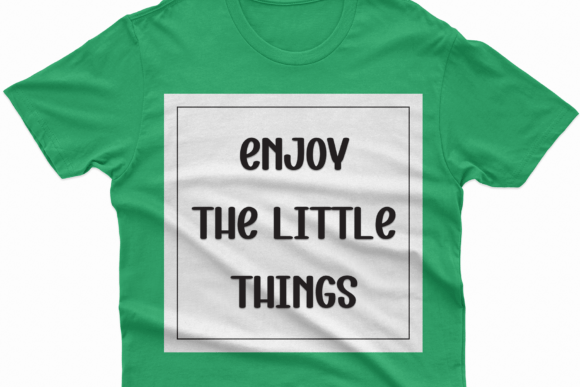
Introducing Shine Summer Font: The Perfect Blend of Casual and Neat Display
When it comes to creating visually appealing designs, the right font can make all the difference. If you’re looking for a font that exudes warmth, clarity, and approachability, look no further than Shine Summer Font. This casual and neat display font is designed to elevate your projects with its clean structure and charming style, making it perfect for branding, headlines, and everyday designs.
The Characteristics of Shine Summer Font
Shine Summer Font boasts a range of characteristics that set it apart from other display fonts. Its balanced letterforms offer exceptional readability, making it easy for your audience to quickly grasp your message. The font’s clean structure and approachable style give it a genuine and inviting feel, perfect for creating a connection with your target audience.
One of the standout features of Shine Summer Font is its ability to bring warmth and clarity to your projects. Whether you’re working on a branding campaign, creating headlines, or designing everyday materials, this font is sure to make your message shine. Its casual and neat design makes it versatile enough to be used in a variety of contexts, from digital media to print materials.
The Benefits of Using Shine Summer Font
So, why choose Shine Summer Font for your design projects? For starters, its readability and charm make it an excellent choice for creating engaging and effective designs. The font’s balanced letterforms ensure that your message is conveyed clearly and concisely, making it perfect for headlines, titles, and short paragraphs of text.
Another benefit of using Shine Summer Font is its versatility. The font’s clean structure and approachable style make it suitable for a wide range of design projects, from branding and advertising to packaging and editorial design. Whether you’re working on a digital project or a print-based campaign, Shine Summer Font is sure to deliver.
How to Use Shine Summer Font in Your Design Projects
So, how can you make the most of Shine Summer Font in your design projects? Here are a few tips to get you started:
- Branding: Use Shine Summer Font to create bold and eye-catching branding materials, such as logos, business cards, and letterheads.
- Headlines: Take advantage of Shine Summer Font’s readability and charm to create engaging headlines that grab your audience’s attention.
- Everyday Designs: Use Shine Summer Font to add a touch of warmth and approachability to your everyday designs, such as social media graphics, flyers, and brochures.
When using Shine Summer Font, be sure to experiment with different font sizes, colors, and styles to find the perfect combination for your design project.
The Design Process Behind Shine Summer Font
The design process behind Shine Summer Font involved a deep understanding of what makes a font truly effective. The goal was to create a font that was not only visually appealing but also highly readable and versatile.
To achieve this, the designers behind Shine Summer Font focused on creating a clean and approachable structure, with balanced letterforms that would make it easy for readers to quickly grasp the message.
The result is a font that is both charming and genuine, making it perfect for a wide range of design projects.
Why Shine Summer Font Stands Out from Other Display Fonts
So, what sets Shine Summer Font apart from other display fonts on the market? For starters, its unique blend of casual and neat design elements makes it a standout.
Unlike other display fonts that can come across as overly ornate or complicated, Shine Summer Font is refreshingly simple and approachable. Its clean structure and balanced letterforms make it highly readable, even at smaller font sizes.
In addition to its aesthetic appeal, Shine Summer Font is also highly versatile, making it suitable for a wide range of design projects.
In conclusion, Shine Summer Font is an exceptional display font that is sure to bring warmth and clarity to your design projects. Its clean structure, approachable style, and balanced letterforms make it perfect for branding, headlines, and everyday designs.
Whether you’re a designer, marketer, or business owner, Shine Summer Font is an excellent choice for anyone looking to create visually appealing and effective designs. So why not give it a try and see the difference it can make in your next design project?